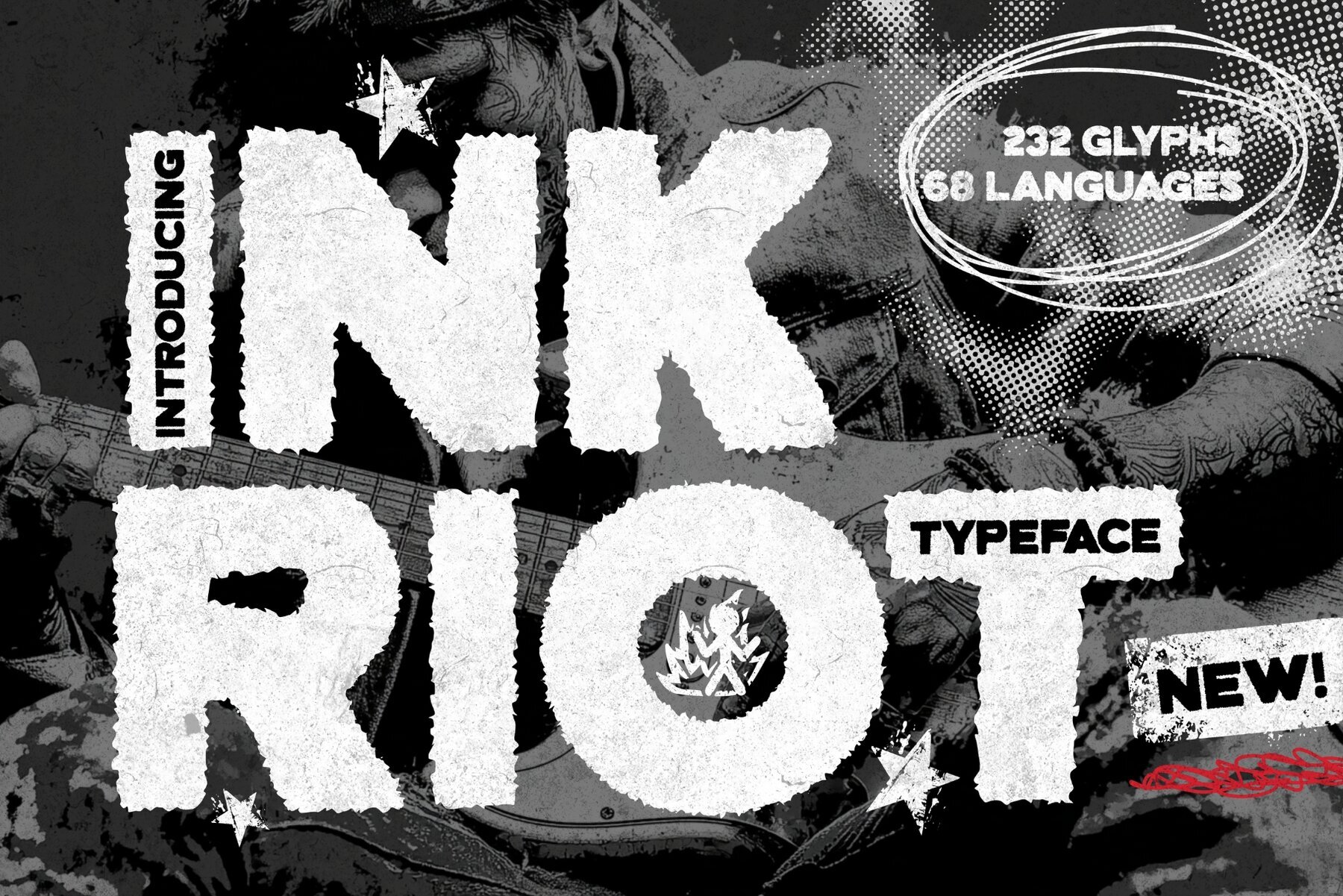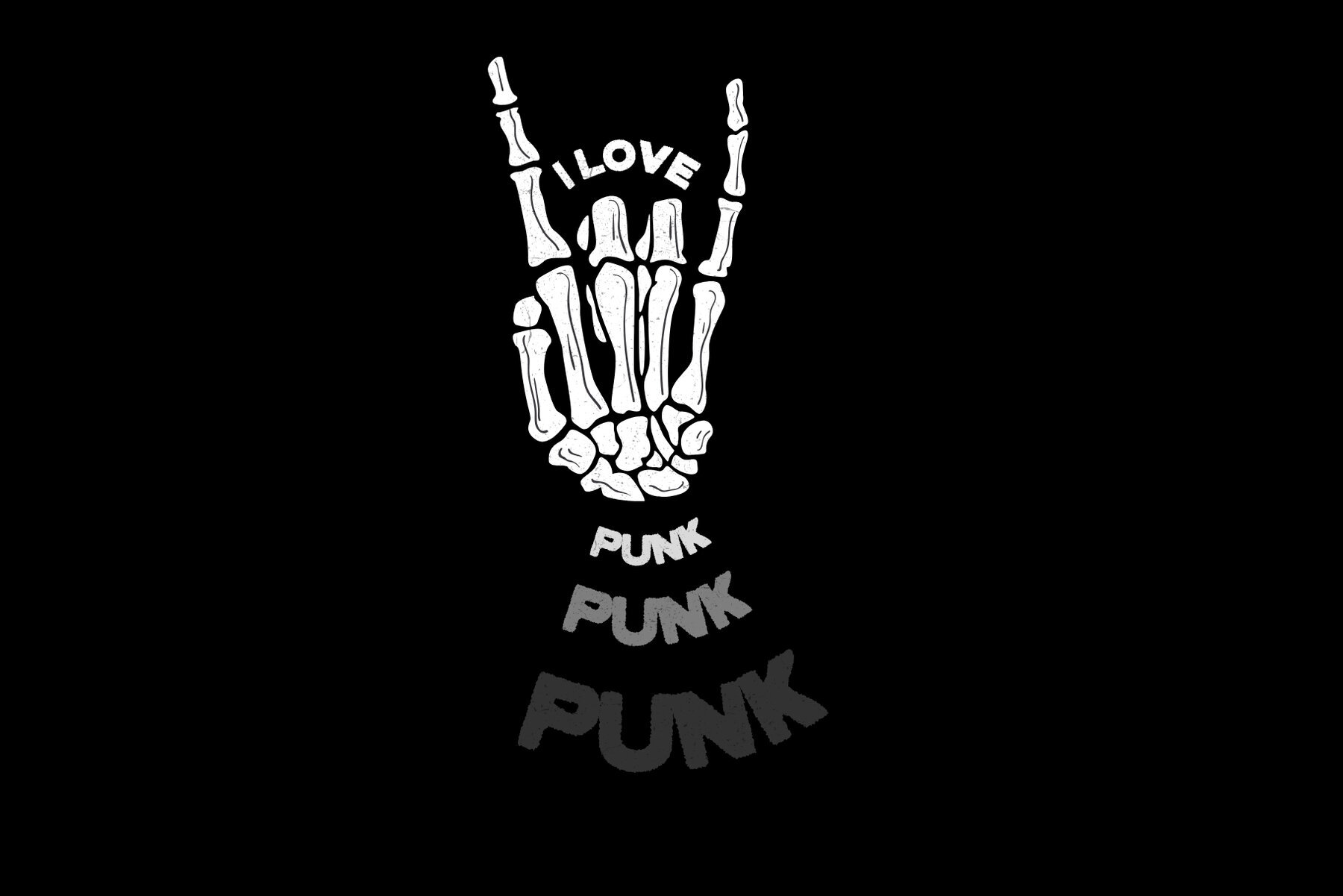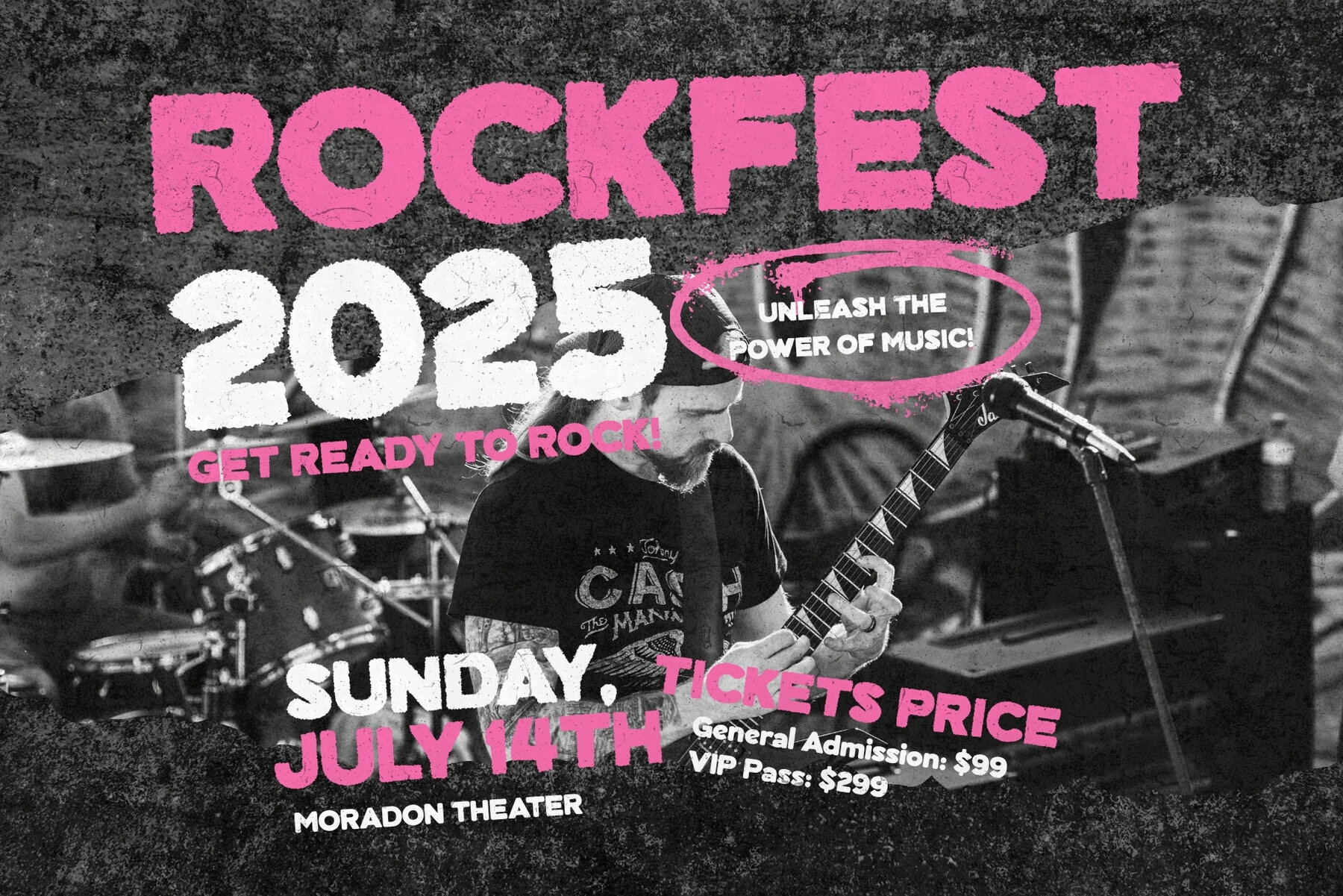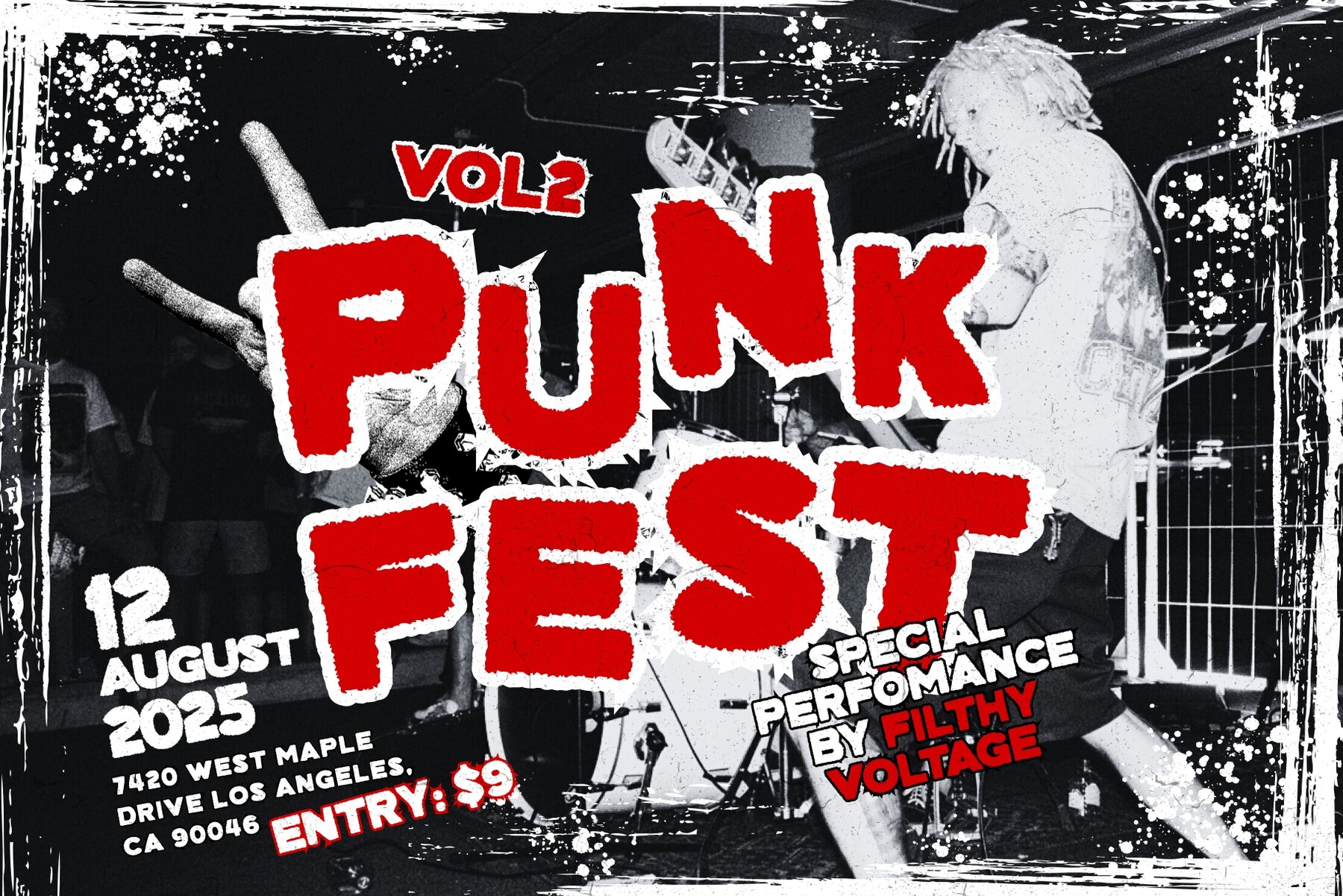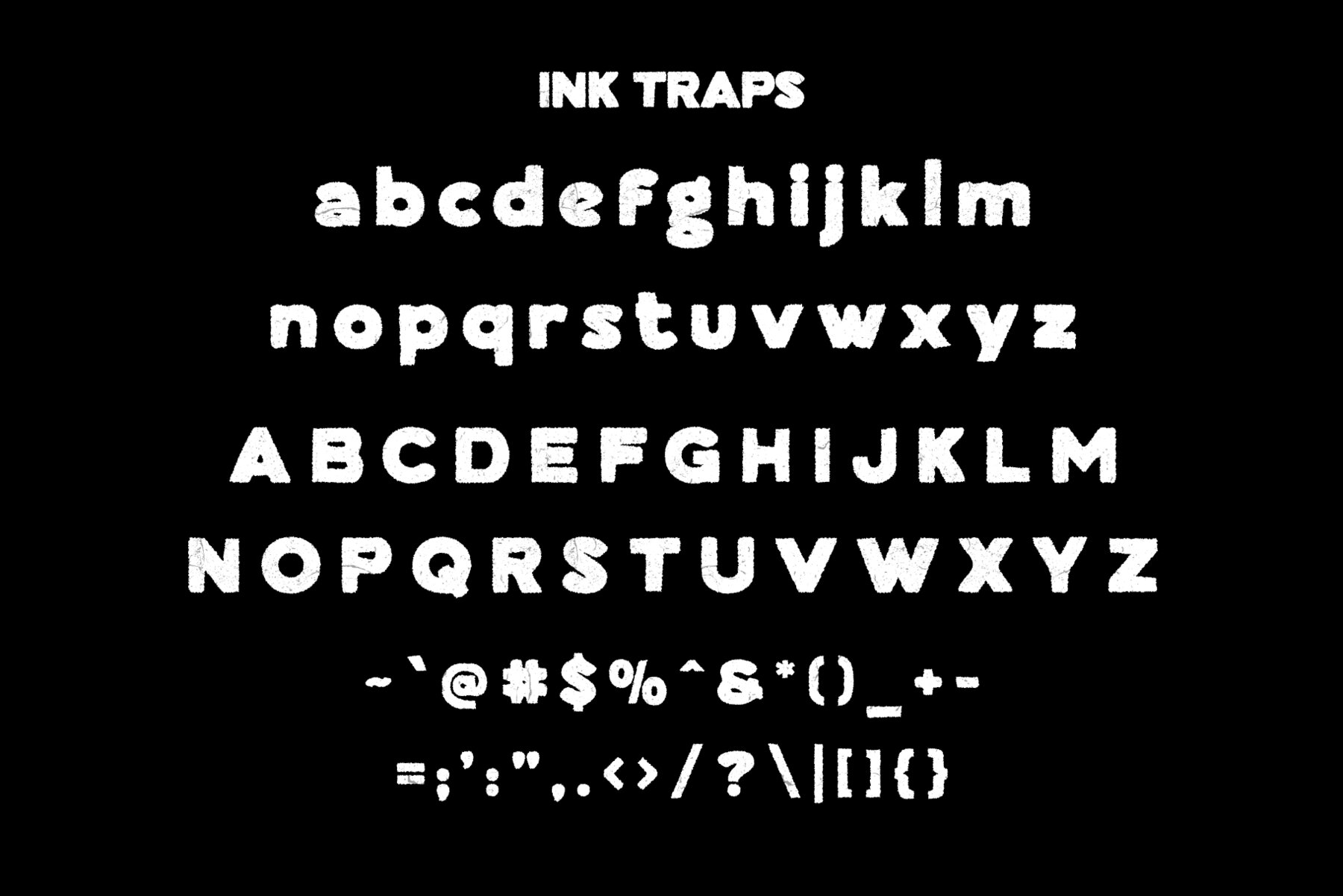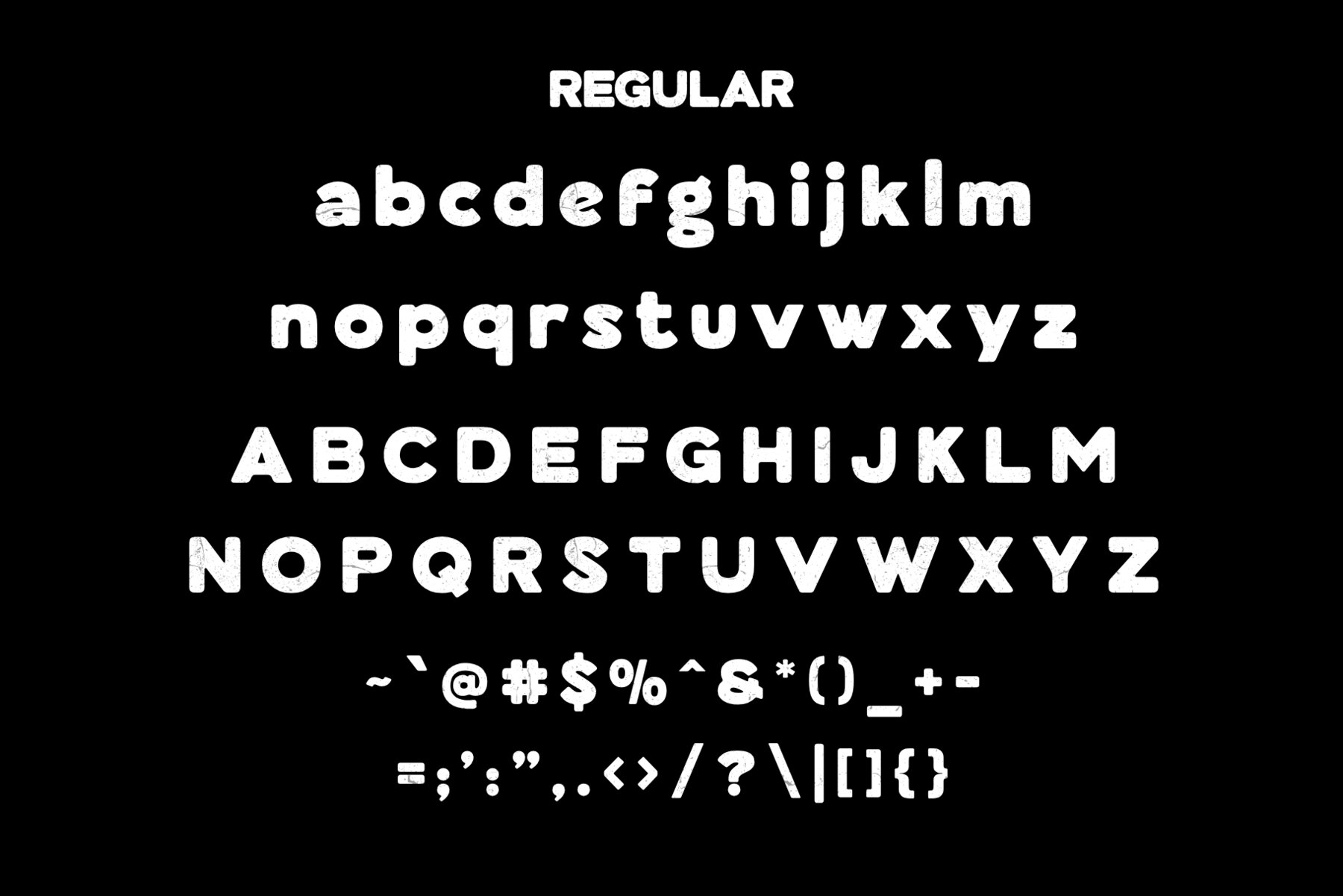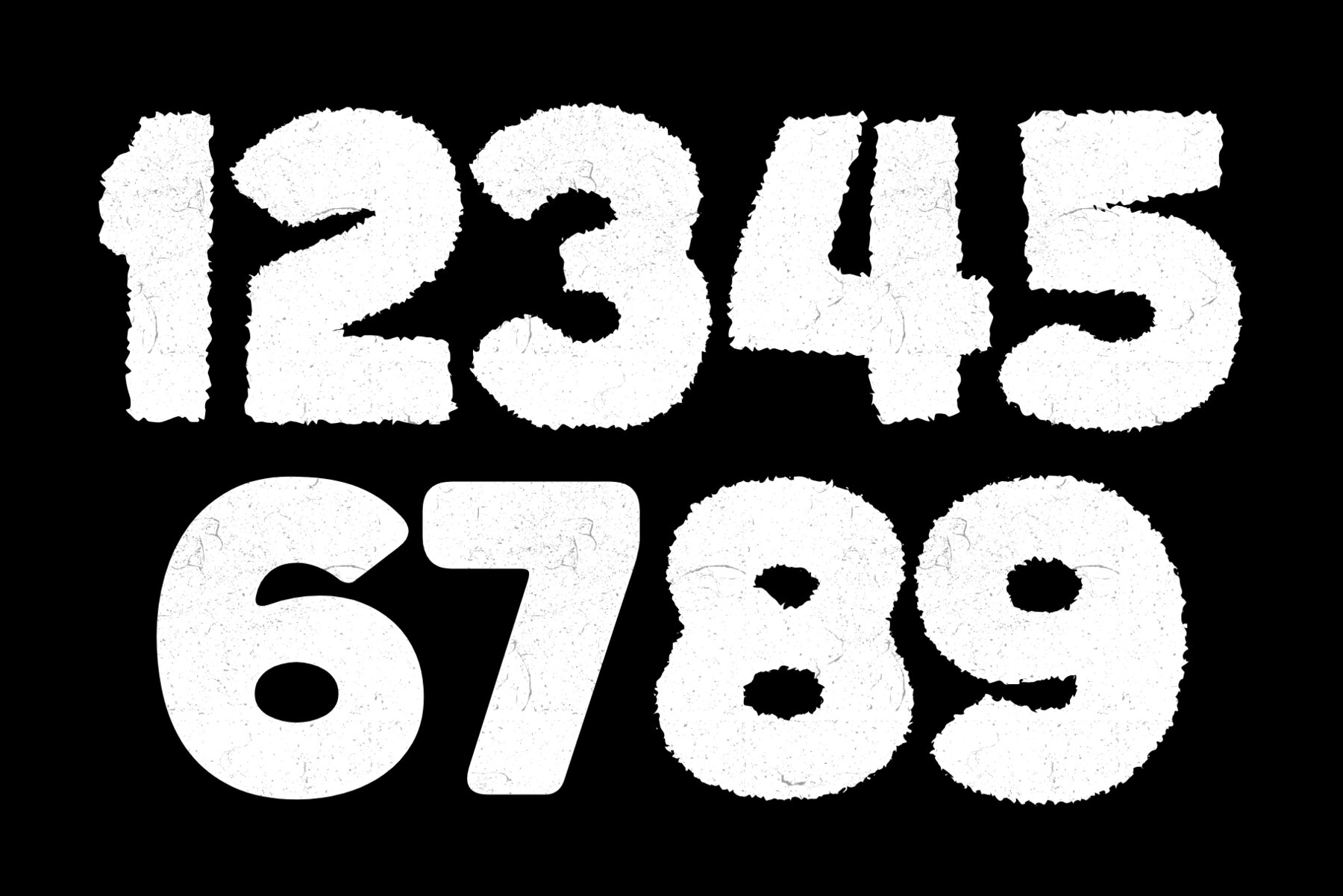
Inkriot Font
Meet Inkriot, a rebellious sans typeface forged in the fires of punk attitude and unapologetic design. With both Regular and Ink Trap versions, Inkriot is built to break boundaries and scream personality, whether you’re crafting bold logos, fierce branding, gritty posters, or punchy social media visuals. This isn’t your typical clean-cut sans. Inkriot comes in two flavors: a smooth Regular version for a bold, solid presence, and a gritty Ink Trap version packed with raw attitude. The Ink Trap style features rough, exaggerated edges that add texture, tension, and a rebellious edge, perfect for designs that need to stand out and strike hard.